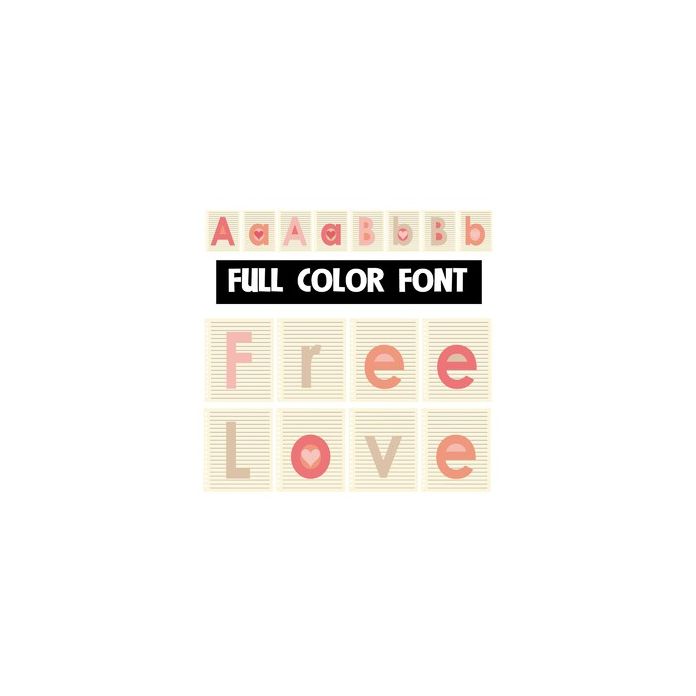
This full-color font features little pieces of lined paper with a vintage Valentine color palette. There is an alt case with alternative color choices that you can access thru your system's character map.